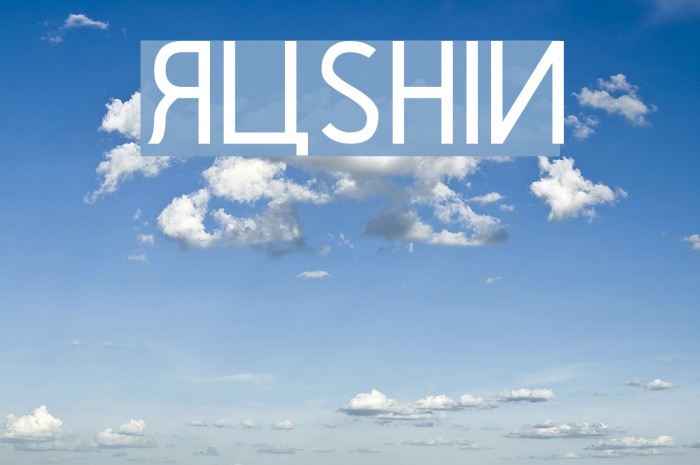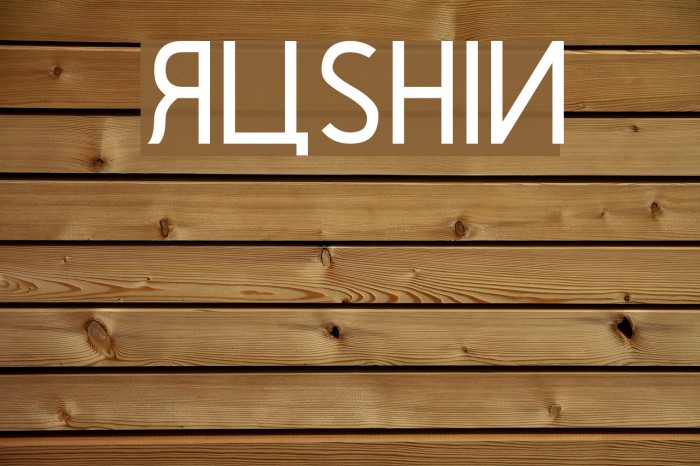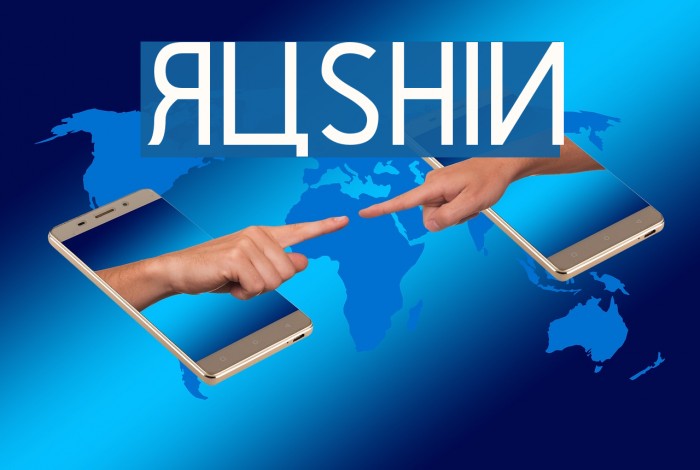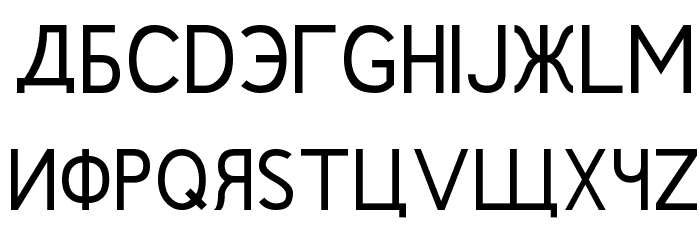
Rushin Font
Rushin Description
This font features a clean and modern sans-serif style, characterized by its geometric shapes and uniform stroke widths. The uppercase letters are bold and assertive, with a slightly condensed appearance that adds to their impact. The lowercase letters maintain the same geometric precision, offering a harmonious balance between form and function. The numerals are clear and legible, making them suitable for a variety of applications. Special characters are included, providing versatility for different design needs. Overall, this font exudes a contemporary aesthetic that is both professional and approachable.
A modern sans-serif font with geometric shapes and uniform strokes from Uncategorized fonts.
- Proposed Projects: Ideal for corporate branding, digital interfaces, and editorial design.